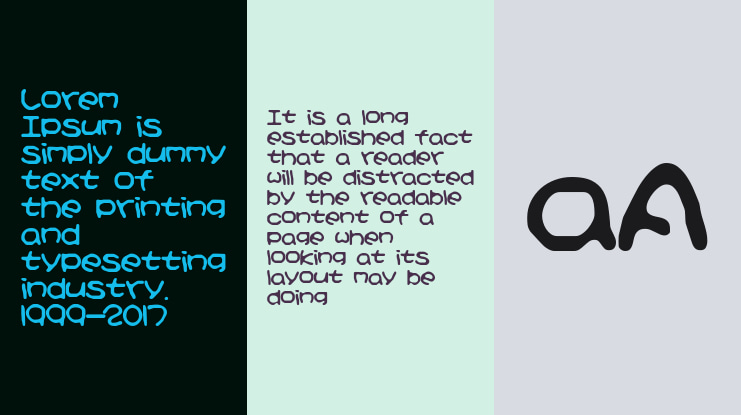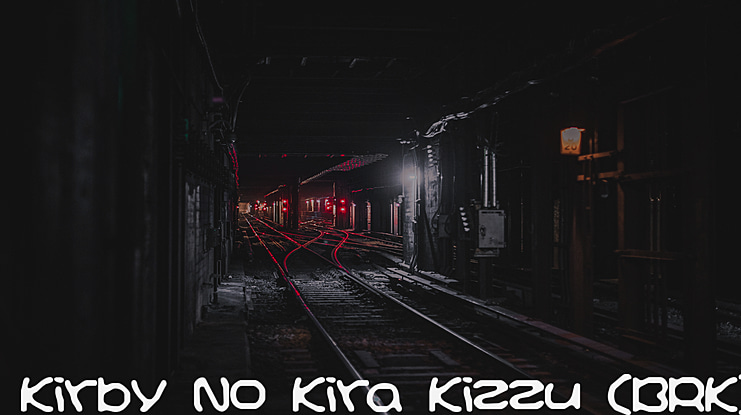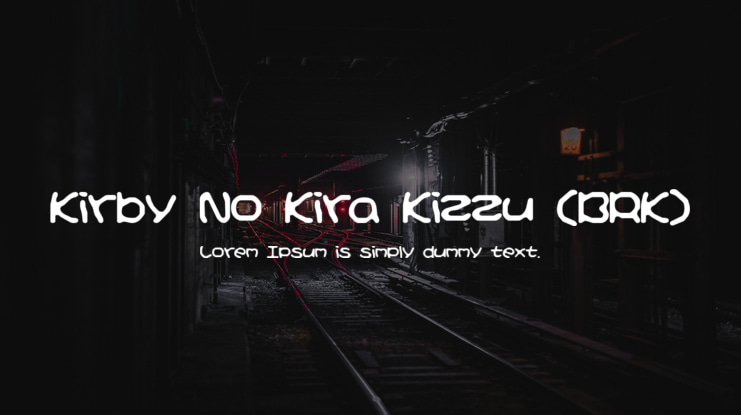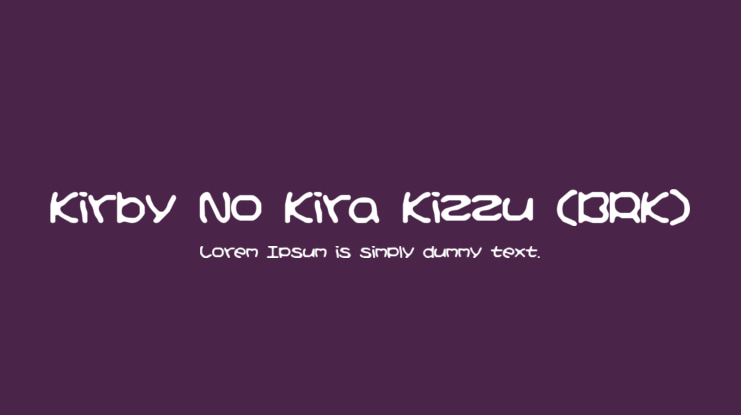
Kirby No Kira Kizzu (BRK) Font
The characters in this font are from the game 'Kirby No Kira Kizzu' for the Super Famicom (SFC) [the game was made into a Game Boy game in the US called "Kirby's Star Stacker"]. In the SFC version, you are able to use English characters as well as Japanese characters when you put in your name, so I made a Font out of the English characters because I think that they looked cool.